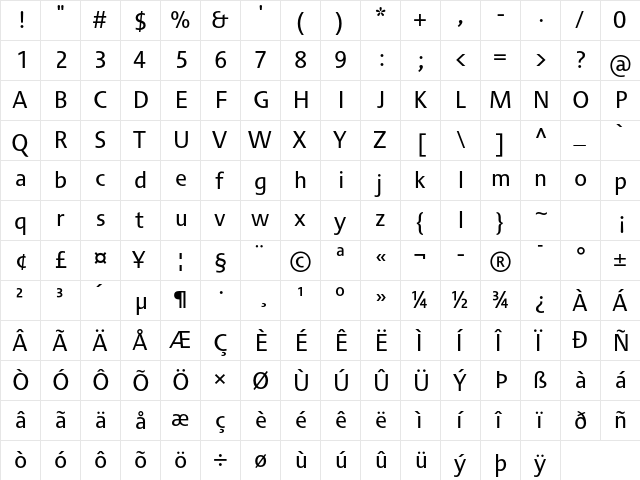
Cisalpin LT Std Regular
| Foundry | Linotype GmbH |
| Designer | Felix Arnold |
Design Context for Cisalpin LT Std Typeface
Cisalpin LT Std offers clean, dependable letterforms without strong stylistic allegiance, making it a practical choice for designers who need flexibility. The delicate stroke weight brings airiness and refinement to layouts.